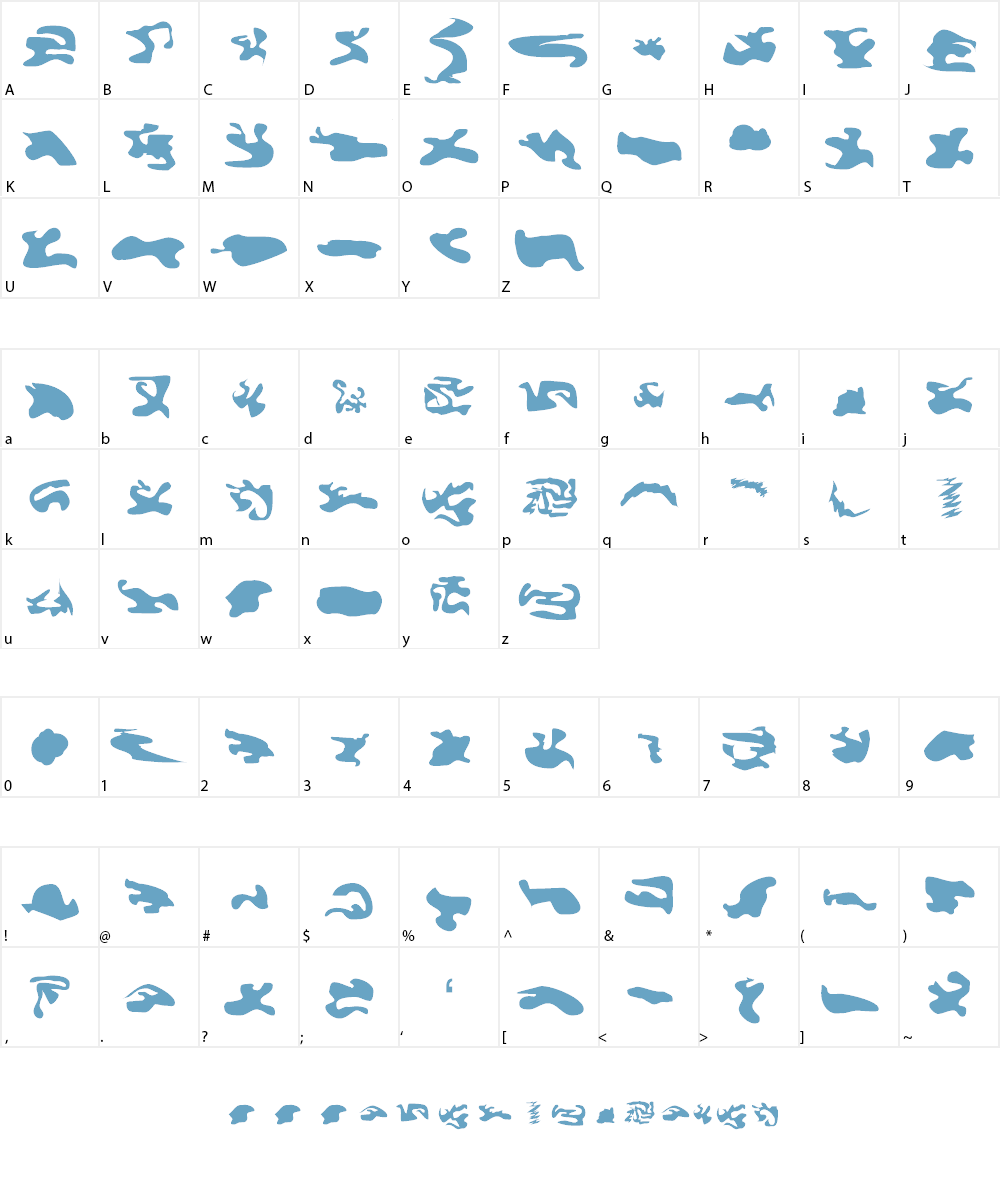
This font is a Camouflage pattern design kit, I designed this as a side project due to being bored and I considered it useful enough to share.
CiSf Camouflage Kit Modernized is a jagged, modern style camouflage weight, and Stencil is a smoothed out, stencil style weight.